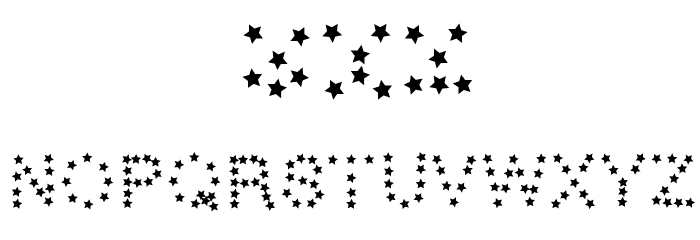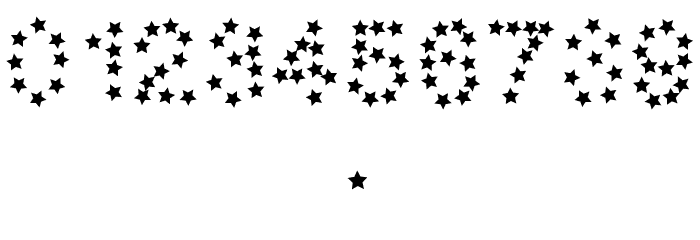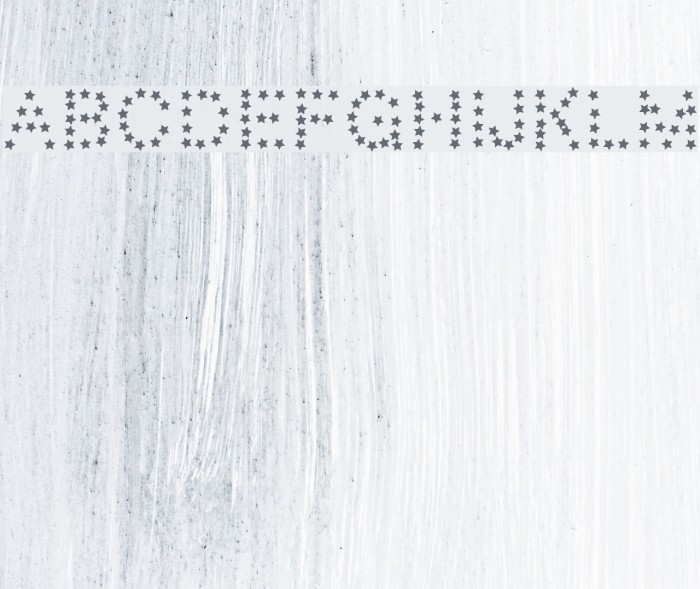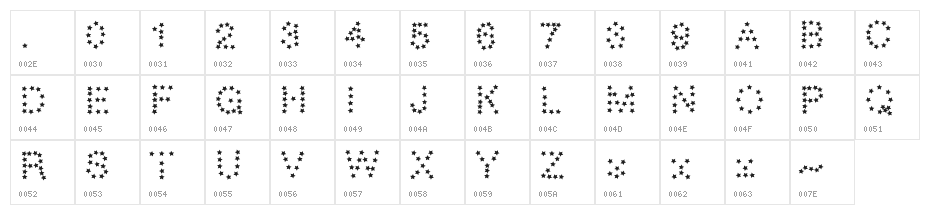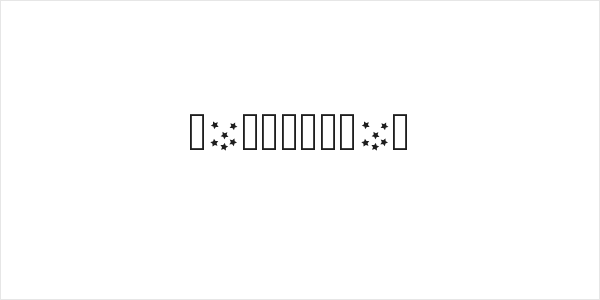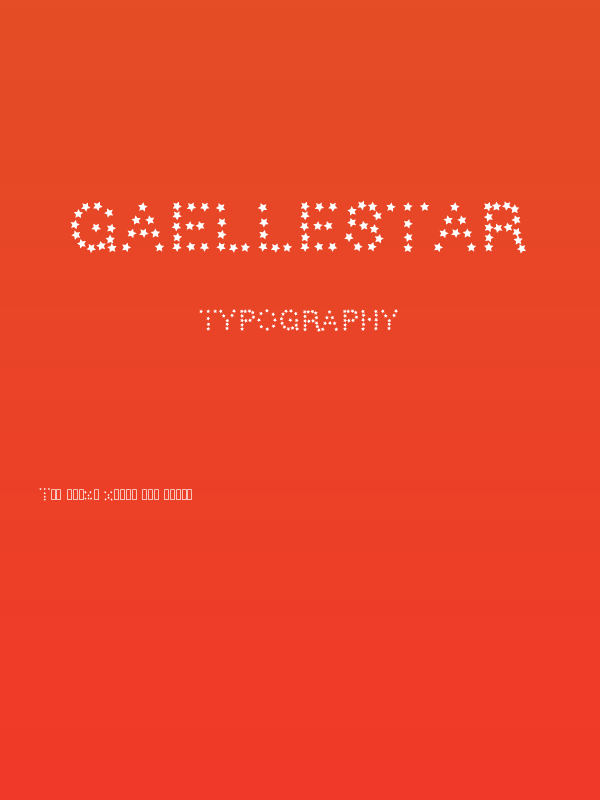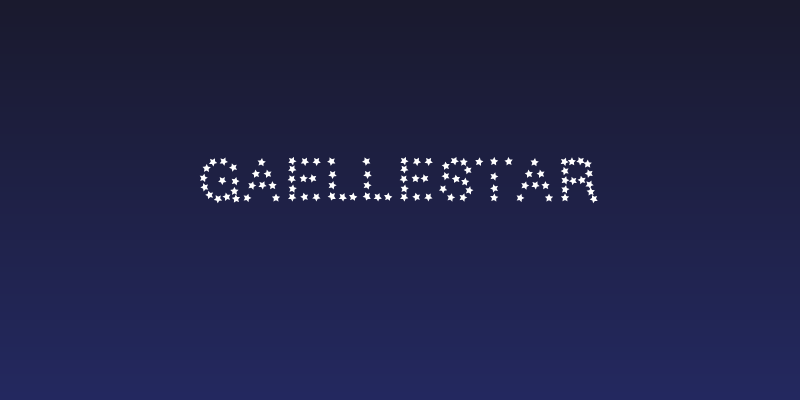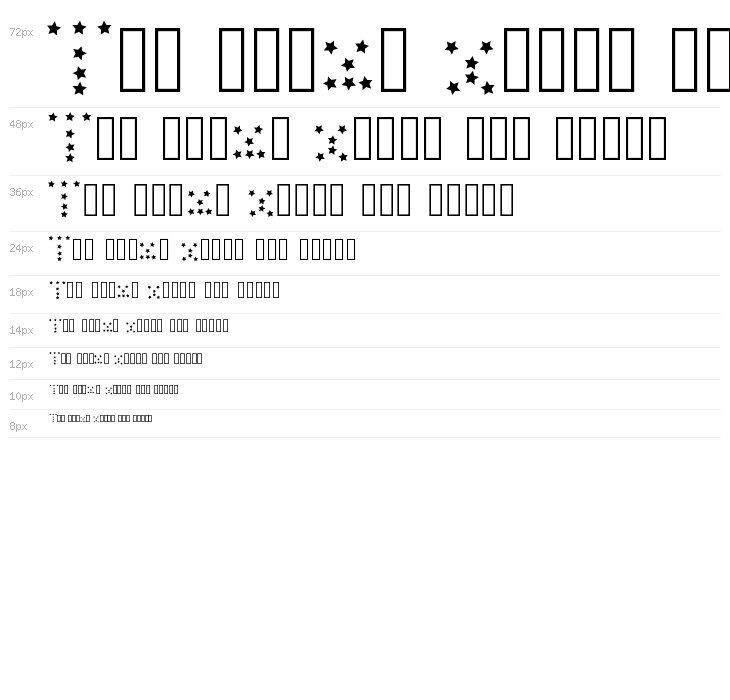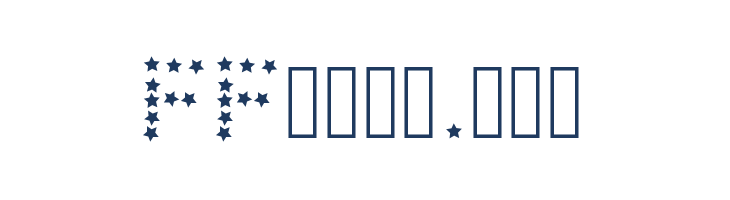
gaellestar Font
This decorative font is composed entirely of star shapes, creating a playful and whimsical appearance. Each character is meticulously crafted with stars, giving it a unique and eye-catching look. The font maintains a consistent size and shape for the stars, ensuring uniformity across all letters and numbers. Its distinct style makes it ideal for creative projects where a fun and engaging visual impact is desired. The font's design is both modern and artistic, making it suitable for a variety of applications that require a standout typographic element.
A decorative font made entirely of star shapes, perfect for playful and creative designs.
- Proposed Projects: Ideal for children's book covers, party invitations, festive banners, and any project needing a whimsical touch.